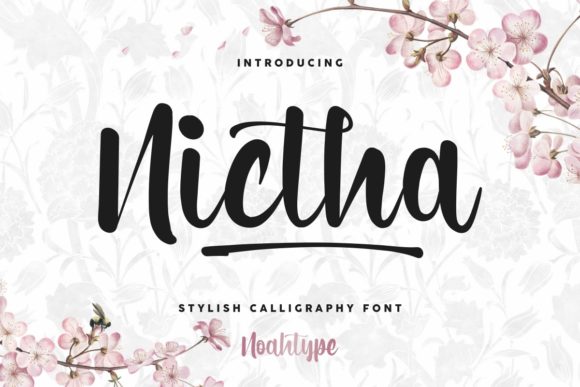
Unleash the Enchanting Allure of Nictha: A Script Font Symphony for Creative Expression
In the realm of typography, where letters dance and words come alive, Nictha emerges as a captivating script font, a testament to the enduring power of handwritten elegance. Crafted with meticulous precision, every stroke and flourish of Nictha is a stroke of brilliance, designed to elevate your creative projects to new heights.
Immerse yourself in the beauty of Nictha's sophisticated characters, each meticulously crafted to embody the grace and fluidity of natural handwriting. Its stylish swashes and gorgeous alternates add a touch of playfulness and dynamism, inviting you to explore endless possibilities for visual expression.
Whether you're a seasoned designer or just starting your creative journey, Nictha is the perfect companion for a wide range of projects. Its versatility shines in invitation calligraphy, where its elegant curves add a personal touch to special occasions. It effortlessly elevates luxury branding, lending an air of sophistication and exclusivity to your designs. Fashion promotions come alive with Nictha's stylish flair, capturing the essence of contemporary trends. Song titles take on a new life, their melodies echoing in the harmonious flow of Nictha's characters.
But Nictha's magic extends far beyond these specific applications. It's a font that sparks creativity and ignites imagination, empowering you to transform ordinary designs into extraordinary masterpieces. Its PUA encoding ensures effortless access to all glyphs and swashes, making it a breeze to incorporate Nictha's charm into your projects.
With Nictha at your fingertips, you'll discover a world of creative possibilities, where your designs sing with elegance and captivate audiences with their timeless beauty. Embrace the allure of Nictha and embark on a creative journey that will leave an indelible mark on the hearts of your audience.